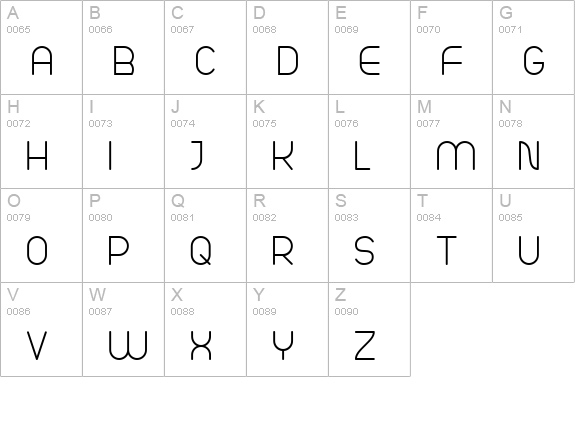
whola Font Details
Whola font is a modern and sleek typeface that radiates elegance and sophistication. With its clean lines and contemporary design, Whola is perfect for a wide range of design projects, from branding to editorial design. Its versatility makes it suitable for both headers and body text, ensuring a cohesive and polished look throughout your work. What sets Whola font apart is not just its aesthetic appeal, but also its accessibility. This font is freely available to download at FontsMarket.com, allowing designers of all levels to access this high-quality typeface without any barriers. Whether you're a seasoned professional or a beginner looking to elevate your design projects, Whola font is a valuable addition to your font library. With its timeless design and easy availability, Whola font is a must-have for anyone looking to add a touch of sophistication and style to their designs. Download it for free today at FontsMarket.com and see how Whola can elevate your next project.